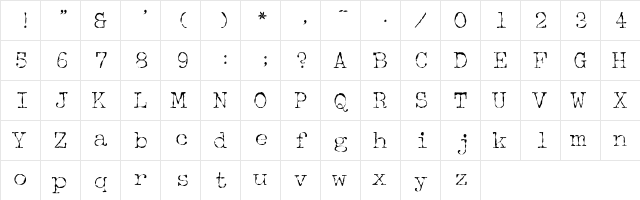
McGarey-Fractured Regular
Design Context for McGarey-Fractured Typeface
McGarey-Fractured is a composed and adaptable typeface that performs quietly and consistently across a wide range of design contexts.